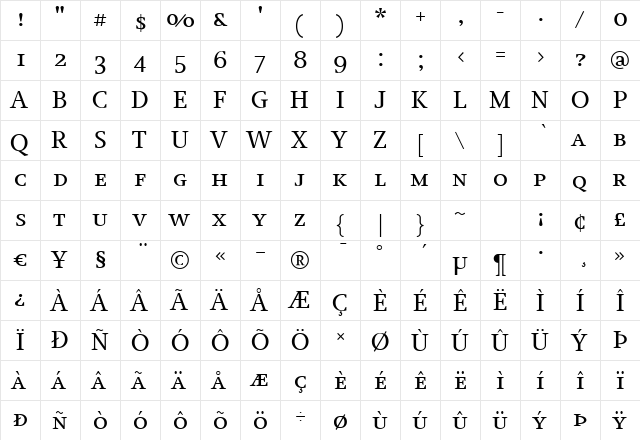
JudeMediumSmallCaps Regular
Design Context for JudeMediumSmallCaps Typeface
JudeMediumSmallCaps is a composed and adaptable typeface that performs quietly and consistently across a wide range of design contexts.